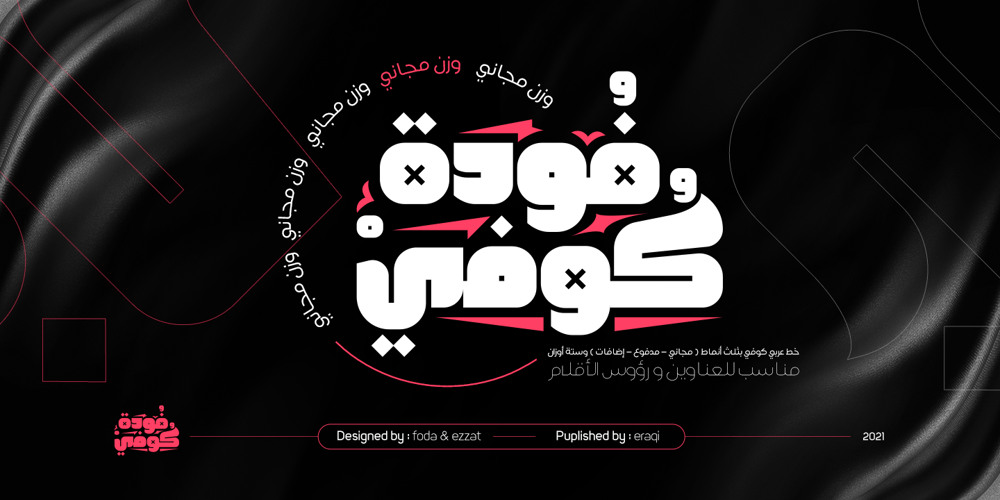
Foda Kufi Font Family was designed by Ahmed Eraqi, Nohamad Foda and published by Fo Da. Foda Kufi contains 6 styles and family package options. Foda Kufi is a Arabic modern Kufi typeface with a touch of historical and Islamic styles, consists of 6 weights: 4 main fonts and two Extra weights for decorations.Foda Kufi is particularly suitable for Headlines, display settings, in titles or decorations.